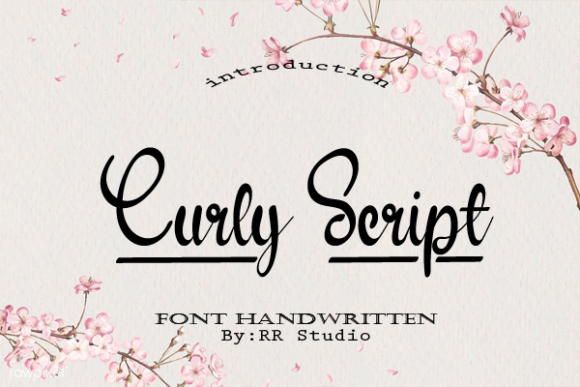
Curly Script Font
About Curly Script Font
Curly Script font is a true testament to elegance and style, bringing a touch of sophistication to any design it graces. With its beautifully crafted, flowing letterforms, this font has the ability to transform ordinary text into a work of art.
When used in wedding invitations, Curly Script font adds a sense of romance and refinement. The delicate curls and loops of each character evoke a sense of whimsy and charm, making it a perfect fit for couples looking to convey their love and joy through their invitations. The font’s graceful curves create a sense of movement and fluidity, mirroring the emotions shared on such a special occasion.
Thank you cards written in Curly Script font become heartfelt expressions of gratitude and appreciation. The elegant and intricate nature of the font’s design elevates the sentiment, making recipients feel truly valued and cherished. The handwritten touch of the font adds a personal feel, enhancing the connection between sender and receiver.
Quotes and greeting cards take on a new level of elegance when adorned with Curly Script font. Its intricate details and refined style elevate the message, making it not just words on paper, but a piece of art that captures attention and leaves a lasting impression. The font’s versatility allows it to adapt to a wide range of moods and sentiments, from heartfelt and sentimental to lighthearted and joyful.
Incorporating Curly Script font into logos and business cards can instantly convey a sense of sophistication and professionalism. Its unique and eye-catching design sets your brand apart, creating a visual identity that is both memorable and elegant. Whether used for a luxury brand, a boutique business, or any other venture, the font adds a touch of class that resonates with clients and customers.
Overall, Curly Script font is a stylish and timeless choice that exudes elegance and grace. Its intricate details and handwritten charm make it a versatile option for a variety of design projects, from wedding invitations to branding materials. With Curly Script, every design becomes a masterpiece, capturing the essence of beauty and sophistication.